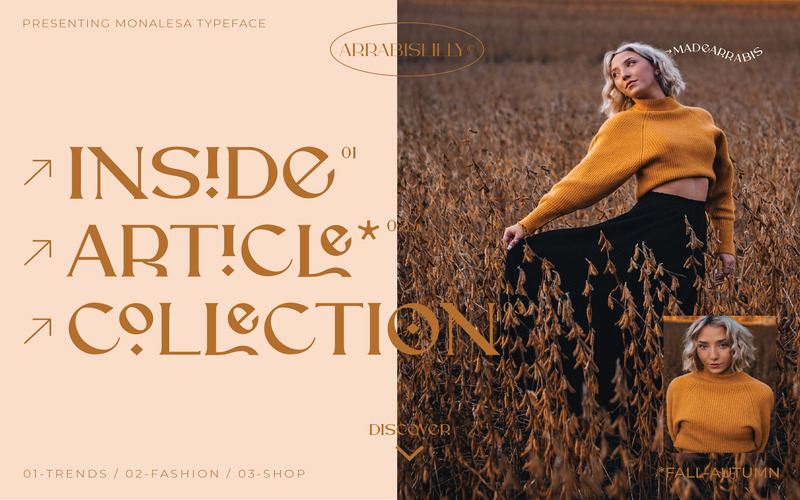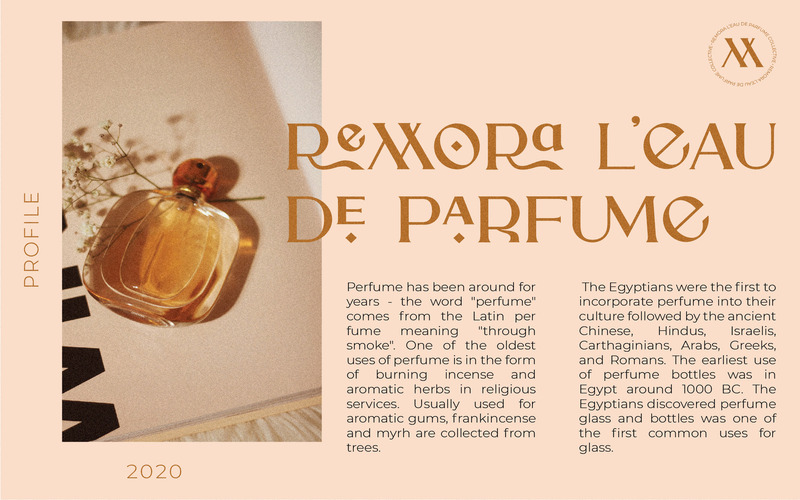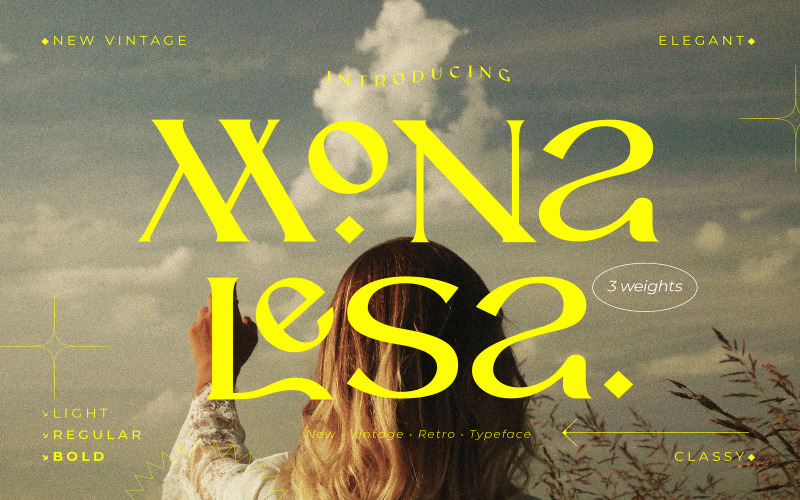
Monalesa - New Vintage Typeface Fonts
Monalesa is a New Vintage font that is both elegant and unique with smooth curves and beautiful ligatures, tons of special alternative glyphs, ornament and multilingual support. It's a very versatile font that works great in large and small sizes. Monalesa is perfect for branding projects, Logo design, Clothing Branding, product packaging, magazine headers, or simply as a stylish text overlay to any background image.
- 3 Weights font
- Stylistic Alternates & Ligatures